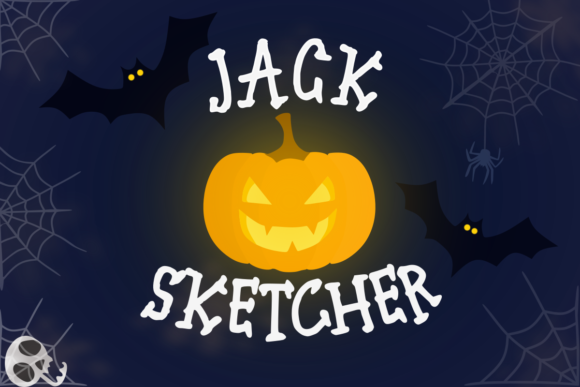
**Introducing Jack Sketcher: The Font That's Head and Shoulders Above the Rest**
In a world clamoring for attention, it's easy to get lost in the sea of sameness. But with Jack Sketcher, a display font that embodies individuality, you'll rise above the noise and captivate your audience with every stroke.
**A Symphony of Quirk and Distinction**
Jack Sketcher isn't just another font; it's a masterpiece waiting to adorn your creative endeavors. Its whimsical curves and playful angles dance across the page, breathing life into every word and captivating the eyes that behold it.
**The Crown Jewel for All-Caps Supremacy**
Tired of fonts that crumble under the weight of all-caps text? Jack Sketcher stands tall, its structure unwavering. This font was meticulously crafted to excel in all-caps, giving your words the impact they deserve.
**Unlock a World of Creative Possibilities**
With Jack Sketcher, the possibilities are endless. Whether you're a designer yearning for a touch of whimsy or a marketer seeking to make a lasting impression, this font will elevate your creations to new heights.
**A Stroke of Genius from Deedeetype**
Jack Sketcher is the brainchild of Deedeetype, the renowned font virtuoso. Known for their impeccable taste and unwavering attention to detail, Deedeetype has poured their heart into creating this typographic gem.
**Experience the Jack Sketcher Difference**